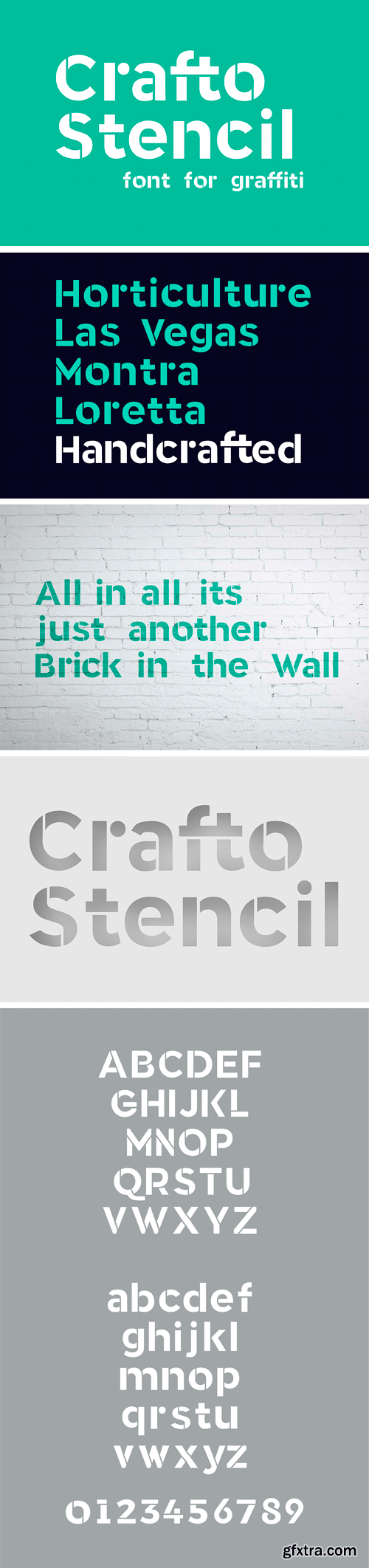
Crafto Stencil Font
Crafto Stencil is a bold display font. It comes with uppercase and lowercase letters, numerals. Crafto Stencil looks great for posters, headlines, logos, banners, signage and etc.